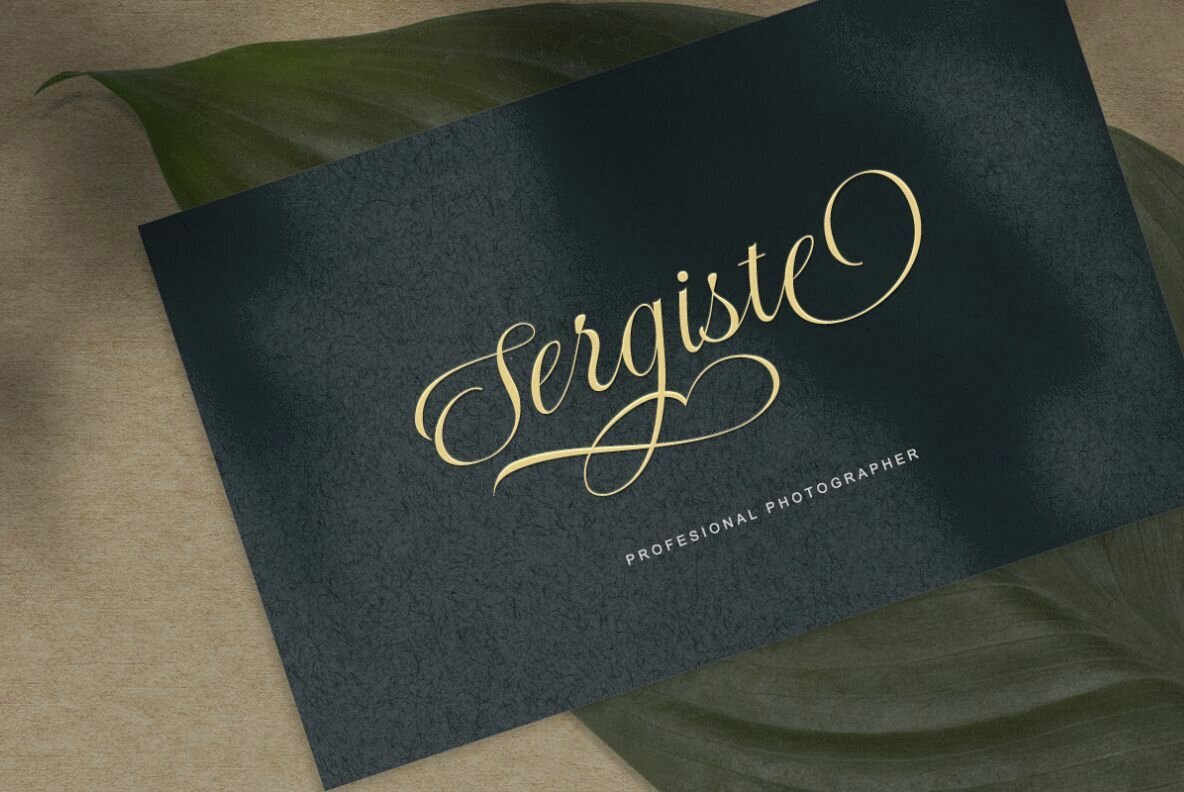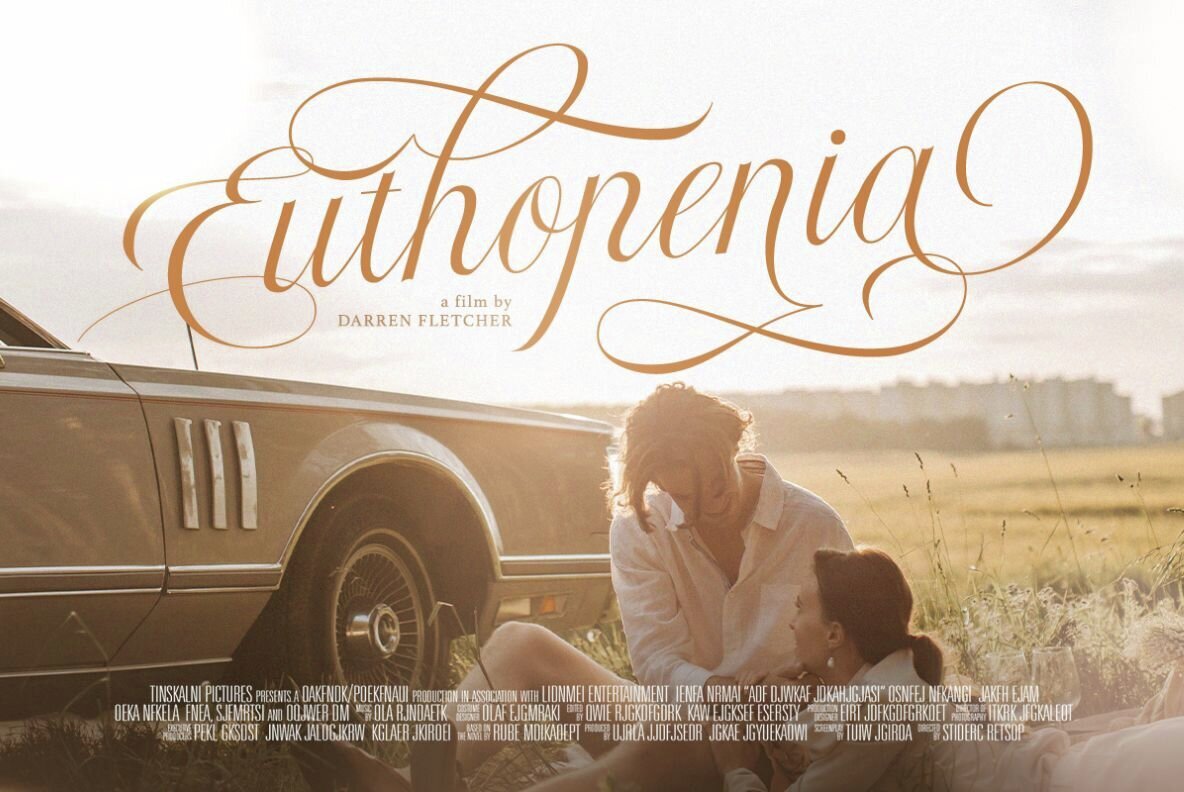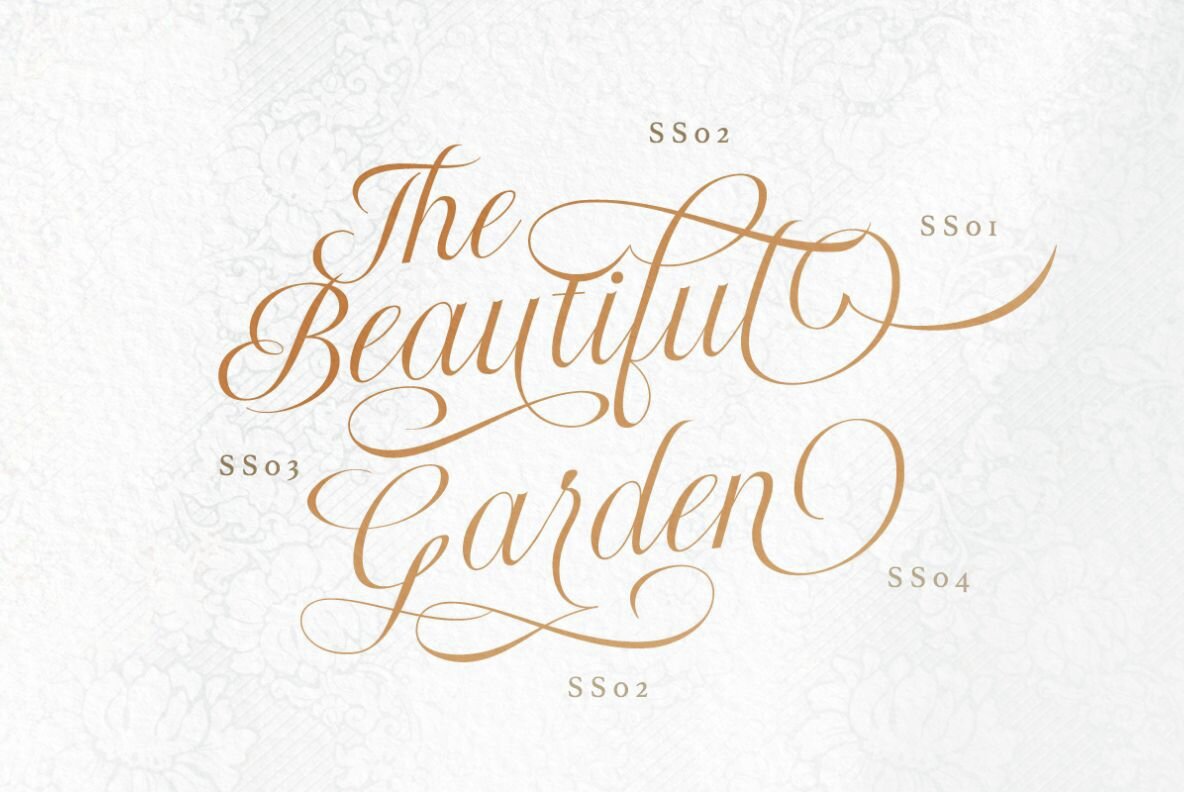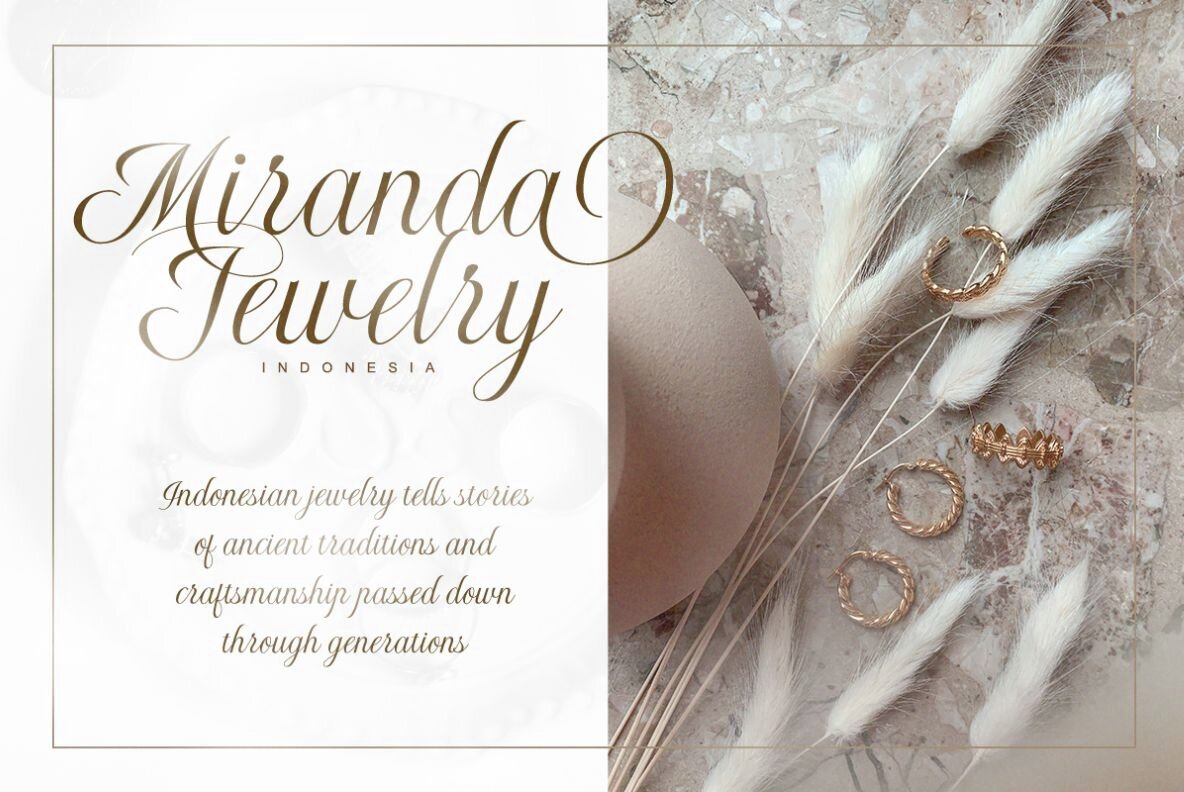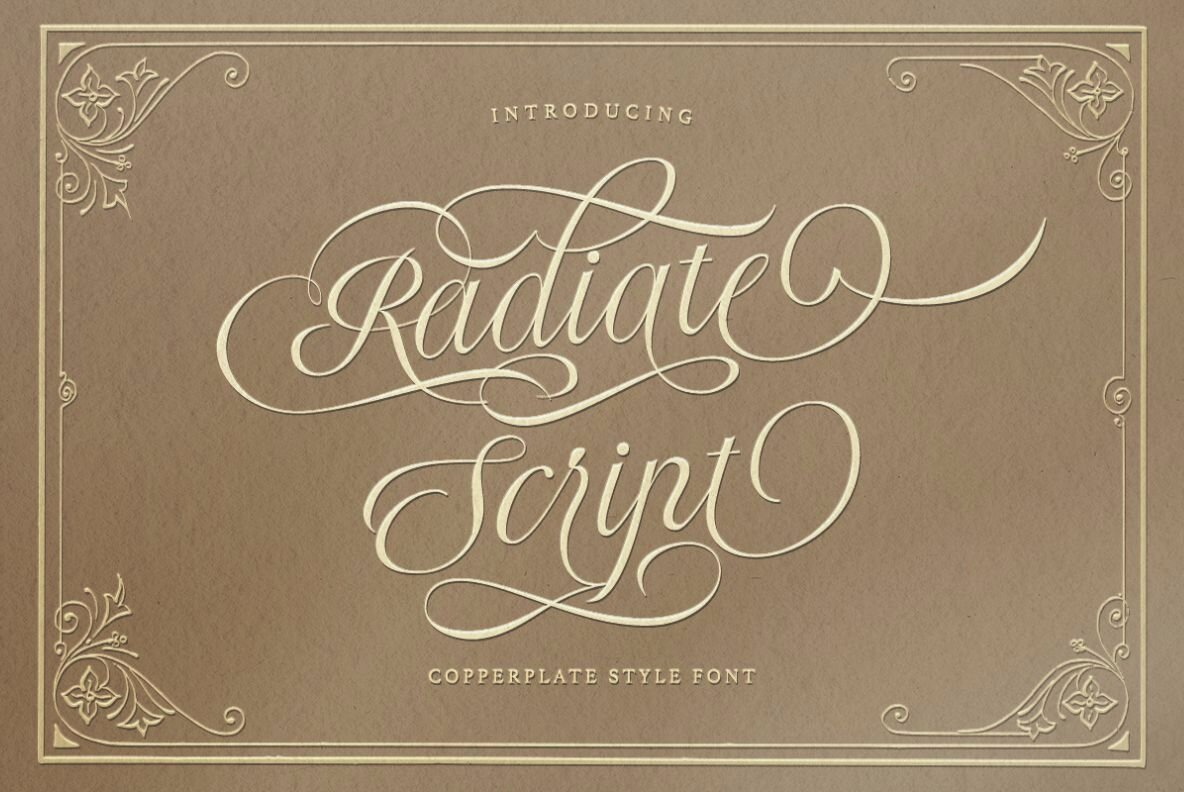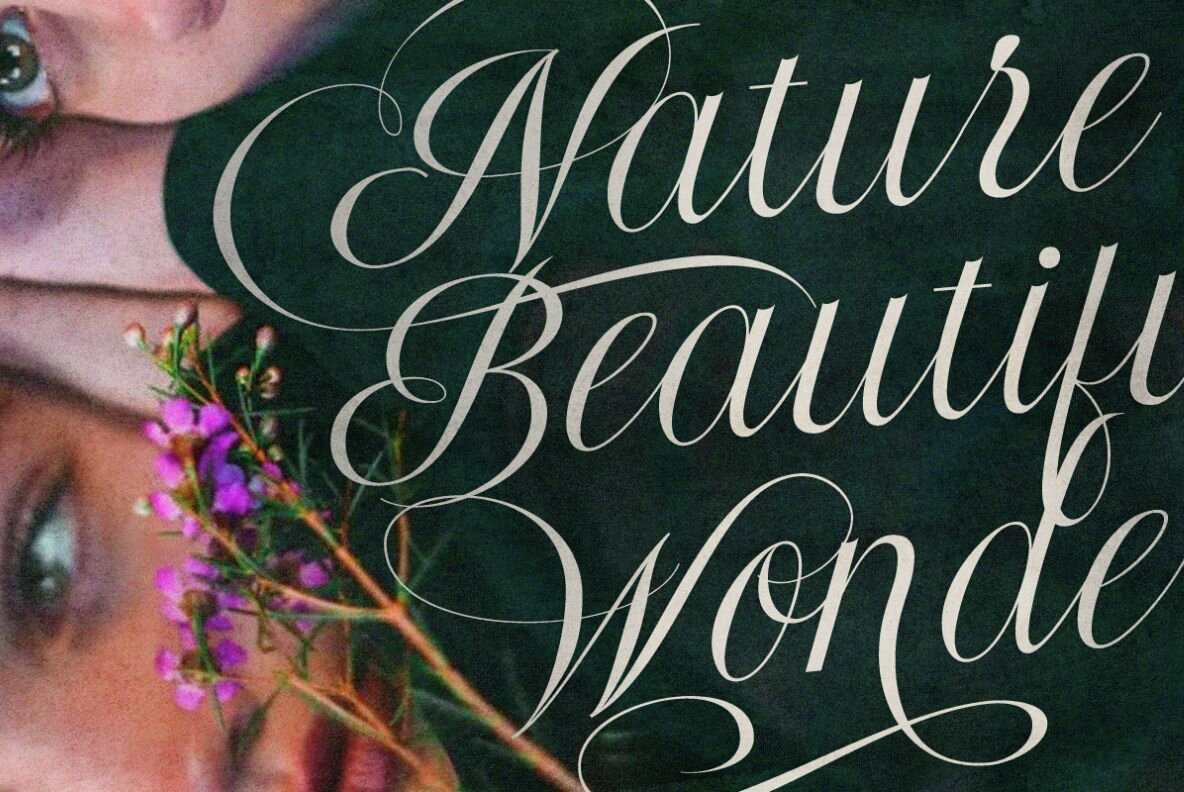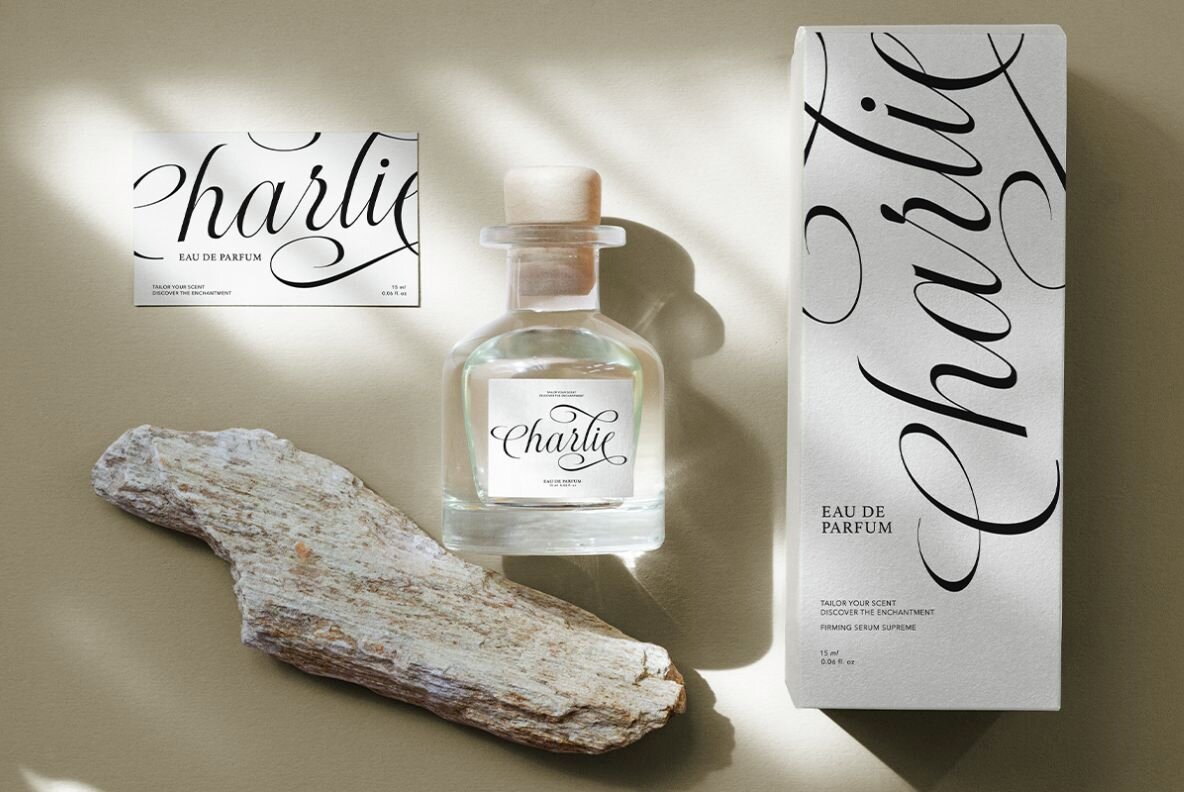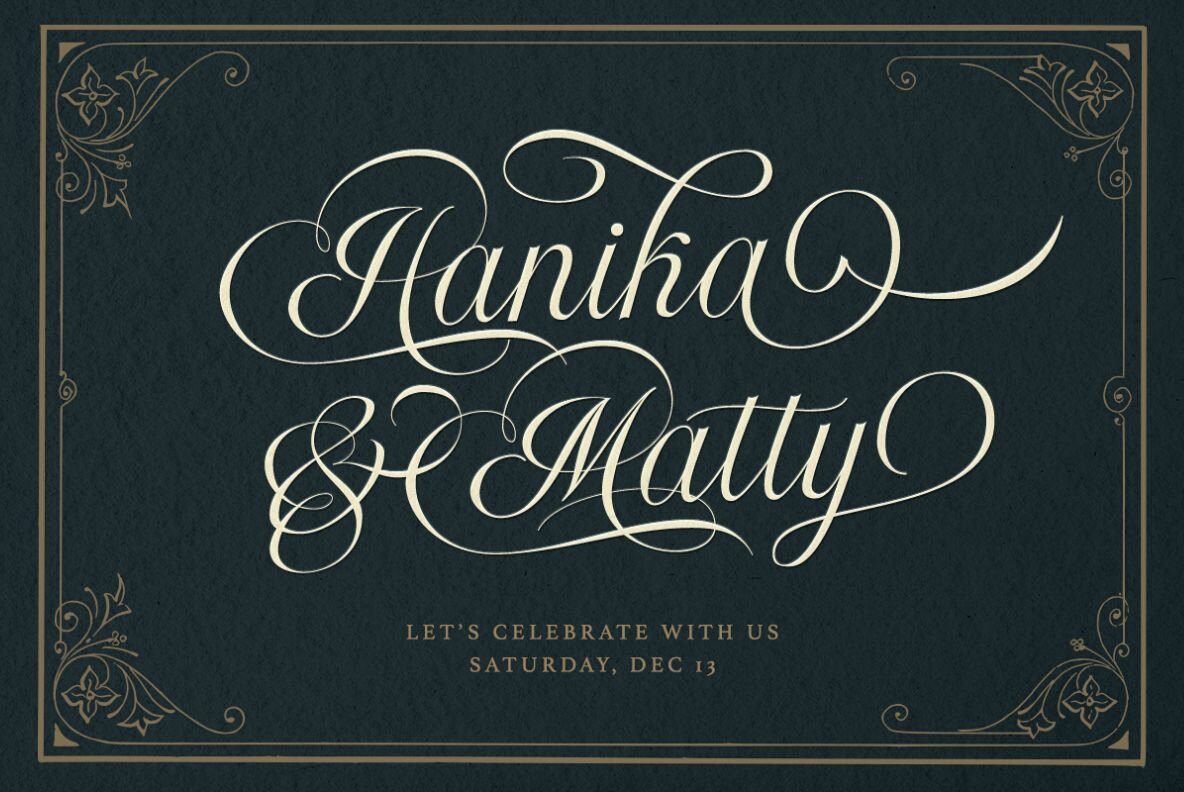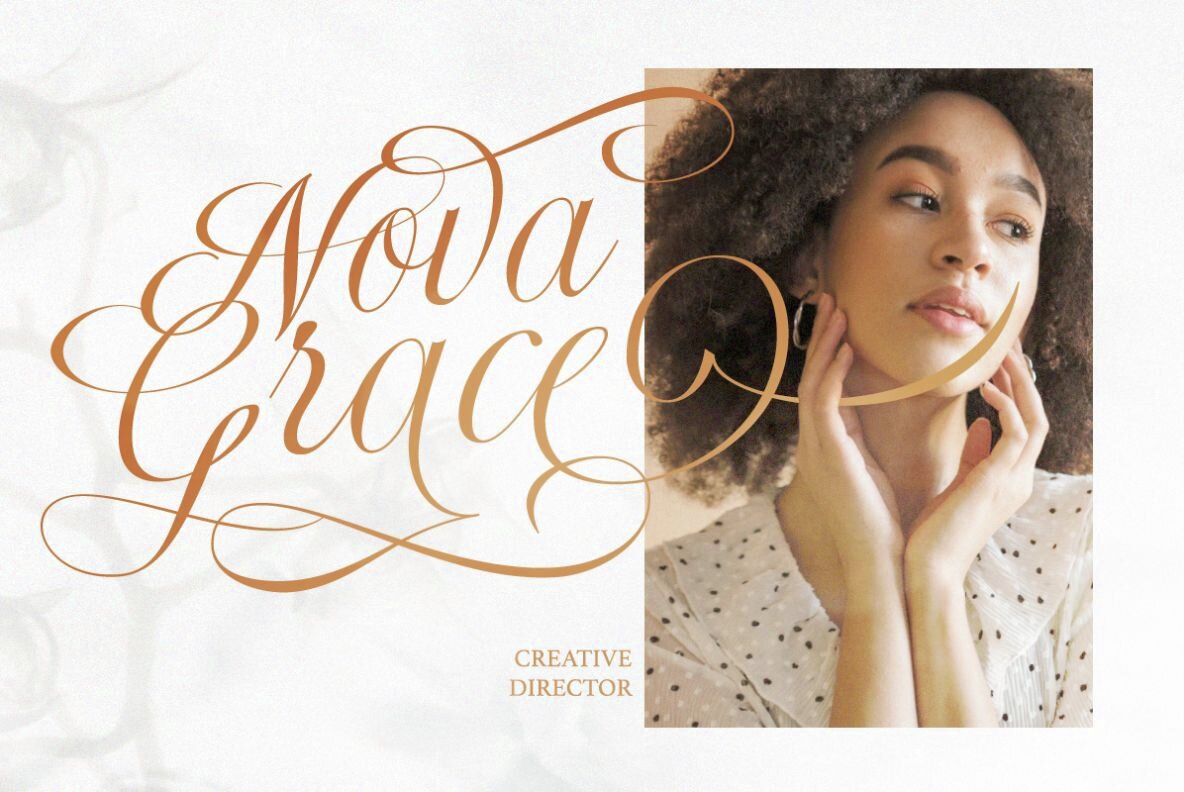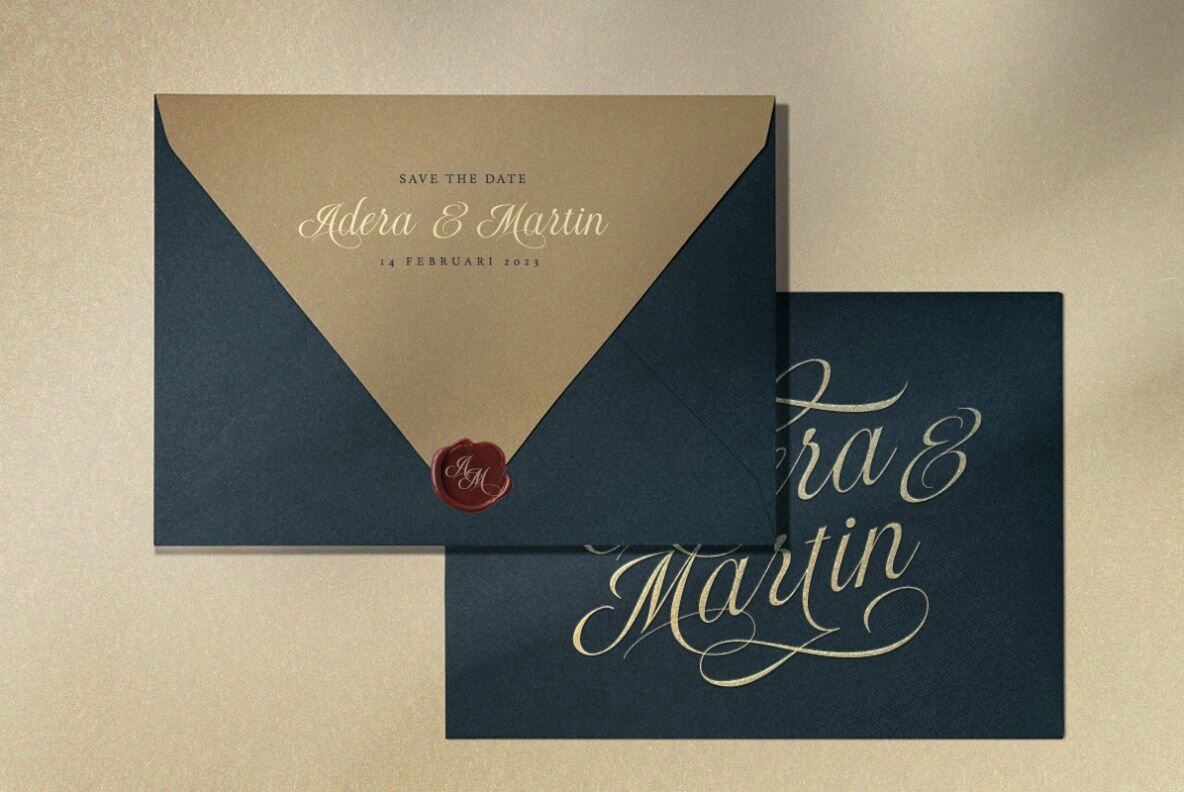
Radiate Font
Radiate Script Regular
Radiate is a stylish wedding script that have many swash alternates! With all the alternate characters, you can make your design more elegant and sophisticated. You can use this font for many purposes, such as quote, and branding, logo, especially wedding invitations. This font also support multi language!